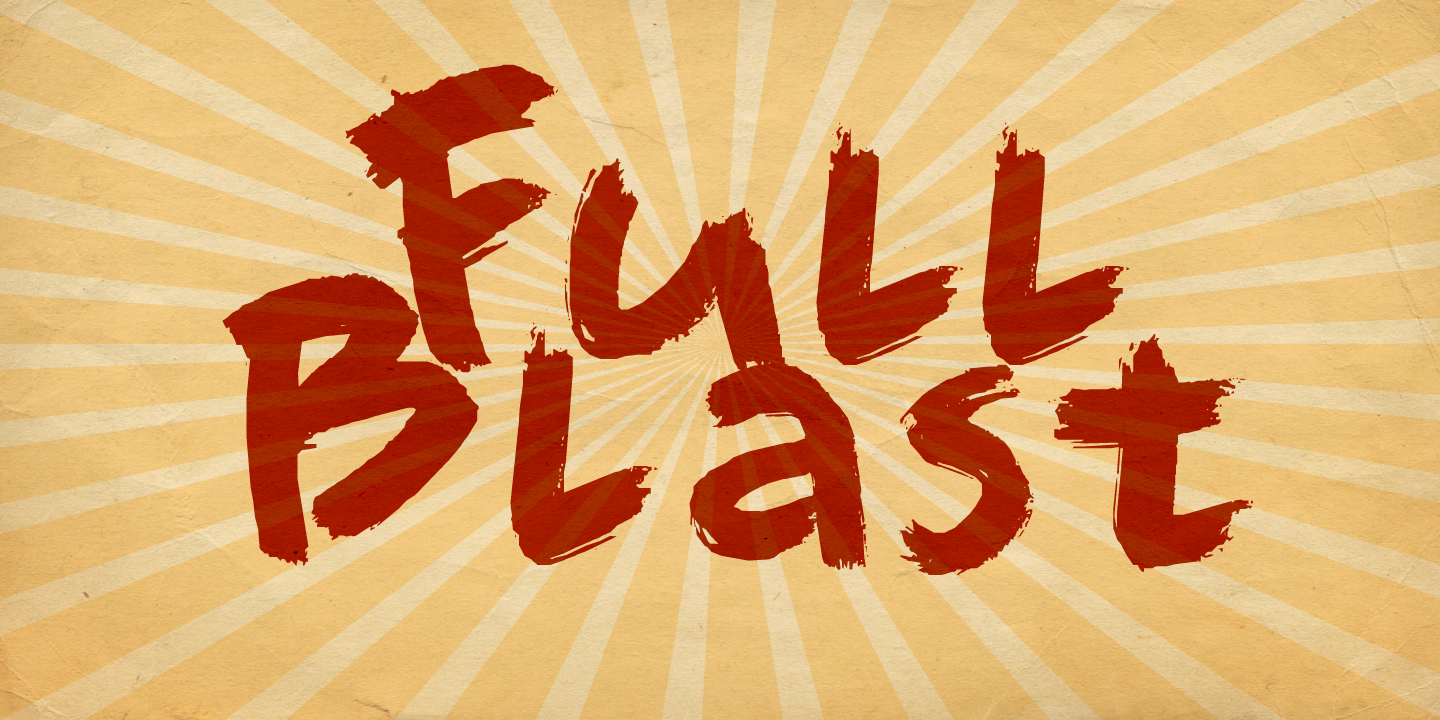
Full Blast Font is an electrifying and highly energetic typeface, perfectly engineered for designs that demand immediate attention and a powerful, impactful presence. Imagine it exploding across posters for action movies, dominating the covers of high-energy video games, or making an unmistakable statement on extreme sports apparel. Its bold, often angular, and dynamic letterforms also make it an excellent choice for crafting striking headlines for rock concerts, designing powerful branding for fitness companies, and creating thrilling advertisements that cut through the noise. Whether you're aiming for an aggressive, exhilarating, or unequivocally dominant aesthetic, Full Blast Font delivers an undeniable visual punch that commands the spotlight.
What makes Full Blast Font truly exciting is its raw intensity and unbridled power. This isn't a subtle font; it's a typographic roar, designed to convey strength, speed, and a sense of unstoppable force. It often incorporates sharp edges, distressed textures, or dynamic slants that contribute to its high-octane personality. This makes it incredibly effective for projects where you need to ignite excitement and convey a sense of urgency or raw power. Full Blast Font stands out by offering a unique blend of aggressive style and undeniable impact, making it a compelling choice for brands and media that want to make a loud and memorable statement.
The Full Blast Font family typically focuses on maximizing its high-impact aesthetic, often featuring a core set of styles designed for maximum visual punch rather than a wide range of delicate weights. You can usually find a standard Regular or Bold weight, sometimes complemented by an Outline, Distressed, or Slanted version to amplify its aggressive and dynamic nature. Traditional italic versions are less common, with designers often relying on the font's inherent motion and strong angles for emphasis. Some versions might also include unique alternative characters or ligatures that further enhance its powerful, almost fragmented, appeal. For those seeking Full Blast Font Free Download, exploring these robust stylistic options is key to unleashing its full potential for truly explosive and unforgettable designs.